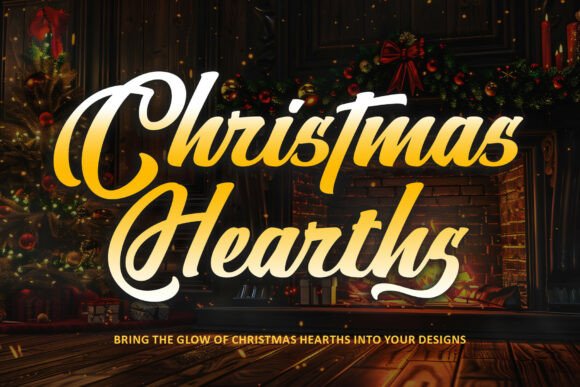
Christmas Hearths Font: A Festive Elegance for Your Designs
The holiday season is upon us, and with it comes the desire to create designs that evoke the warmth, coziness, and magic of Christmas. One of the most effective ways to infuse your projects with the festive spirit is by using a font that embodies the essence of the season. This is where Christmas Hearths Font comes into play – a bold script font that glows with festive elegance and timeless charm.
Introducing Christmas Hearths Font
Christmas Hearths is a thoughtfully designed script font that captures the cozy spirit of Christmas while remaining versatile for countless creative uses. Its flowing strokes and touch of modern flair make it an ideal choice for anyone looking to add a dash of festive elegance to their designs. Whether you’re working on logos, posters, packaging, or seasonal branding, Christmas Hearths adds warmth and sophistication to any project.
Christmas Hearths Font
Key Features of Christmas Hearths Font
• Bold Script Font: Christmas Hearths boasts a bold and elegant script style that’s perfect for making a statement in your designs.
• Festive Elegance: The font’s design is deeply rooted in the festive spirit of Christmas, making it an excellent choice for holiday-themed projects.
• Flowing Strokes: The smooth, flowing strokes of Christmas Hearths give it a dynamic and fluid feel, adding a touch of sophistication to your designs.
• Modern Flair: Despite its classic feel, Christmas Hearths incorporates a touch of modernity, making it versatile enough for a wide range of creative applications.
Creative Ways to Use Christmas Hearths Font
Christmas Hearths is incredibly versatile, making it suitable for a variety of design projects. Here are some ideas to get you started:
• Logos and Branding: Use Christmas Hearths to create a festive and memorable logo for your business or a seasonal branding campaign.
• Holiday Posters and Flyers: Add a touch of elegance and festivity to your holiday posters and flyers with this beautiful script font.
• Packaging Design: Elevate your product packaging with a festive and sophisticated look that stands out during the holiday season.
• Social Media Graphics: Create eye-catching social media graphics that spread holiday cheer and engage your audience.
• Invitations and Cards: Design personalized holiday invitations and cards that exude warmth and elegance.
Why Choose Christmas Hearths Font?
There are several reasons why Christmas Hearths stands out as a top choice for your design projects:
• Unique and Festive: The font’s unique design captures the essence of Christmas, making your designs instantly recognizable as holiday-themed.
• Highly Versatile: Whether you’re designing for digital platforms or print, Christmas Hearths adapts seamlessly to various mediums.
• Timeless Appeal: Unlike trendy fonts that may quickly become outdated, Christmas Hearths has a timeless charm that will remain relevant for years to come.
Tips for Using Christmas Hearths Effectively
To make the most of Christmas Hearths Font, consider the following design tips:
• Pair with Complementary Fonts: Combine Christmas Hearths with simpler fonts to create a balanced and visually appealing design.
• Experiment with Colors: While traditional holiday colors like red and green work well, don’t be afraid to experiment with different color palettes to give your designs a unique twist.
• Utilize Swashes and Alternates: Take advantage of the font’s swashes and alternates to add flair and personality to your text.
• Keep it Legible: Ensure that your text remains legible, especially when using the font’s more decorative elements.
Wrap Up Your Designs with Christmas Hearths Font
Christmas Hearths Font is more than just a font – it’s a design experience that brings the magic of Christmas to your projects. With its bold script style, festive elegance, and versatile design, it’s the perfect tool for creating memorable and impactful designs. Whether you’re a designer, a small business owner, or simply someone who loves the holiday season, Christmas Hearths is sure to become your go-to font for all your holiday design needs.